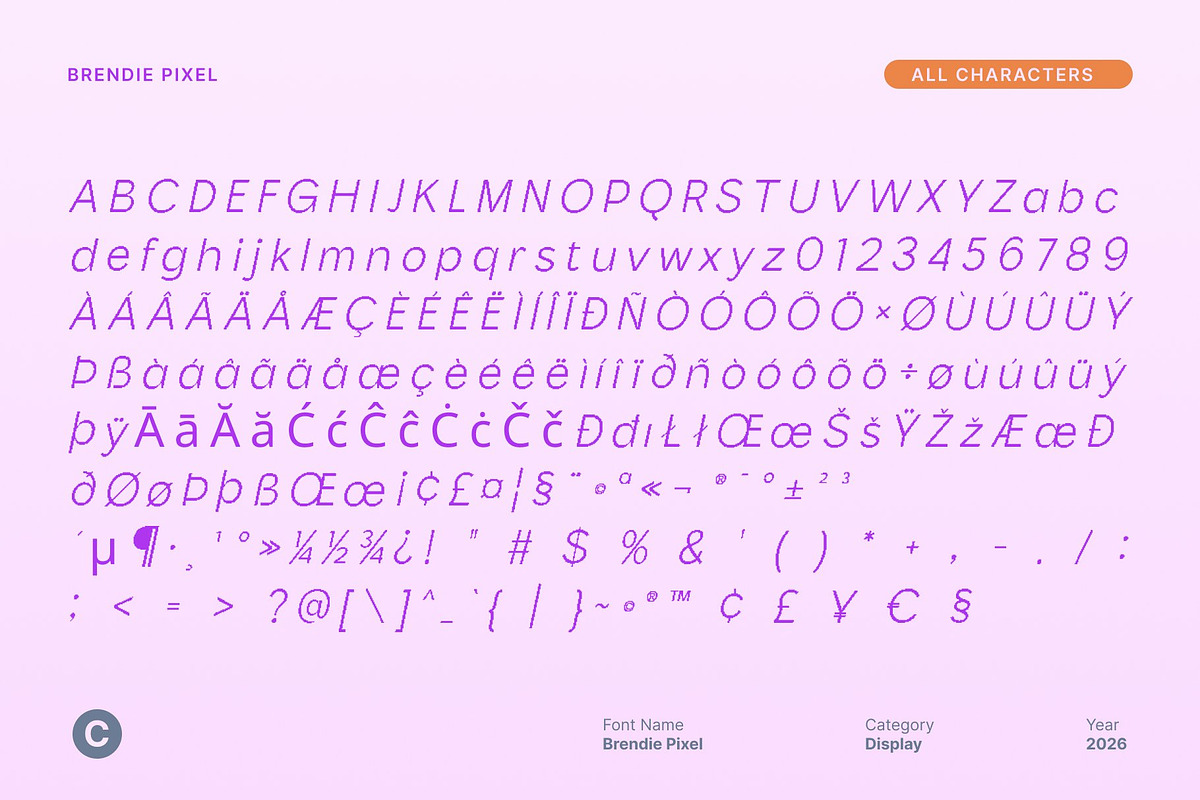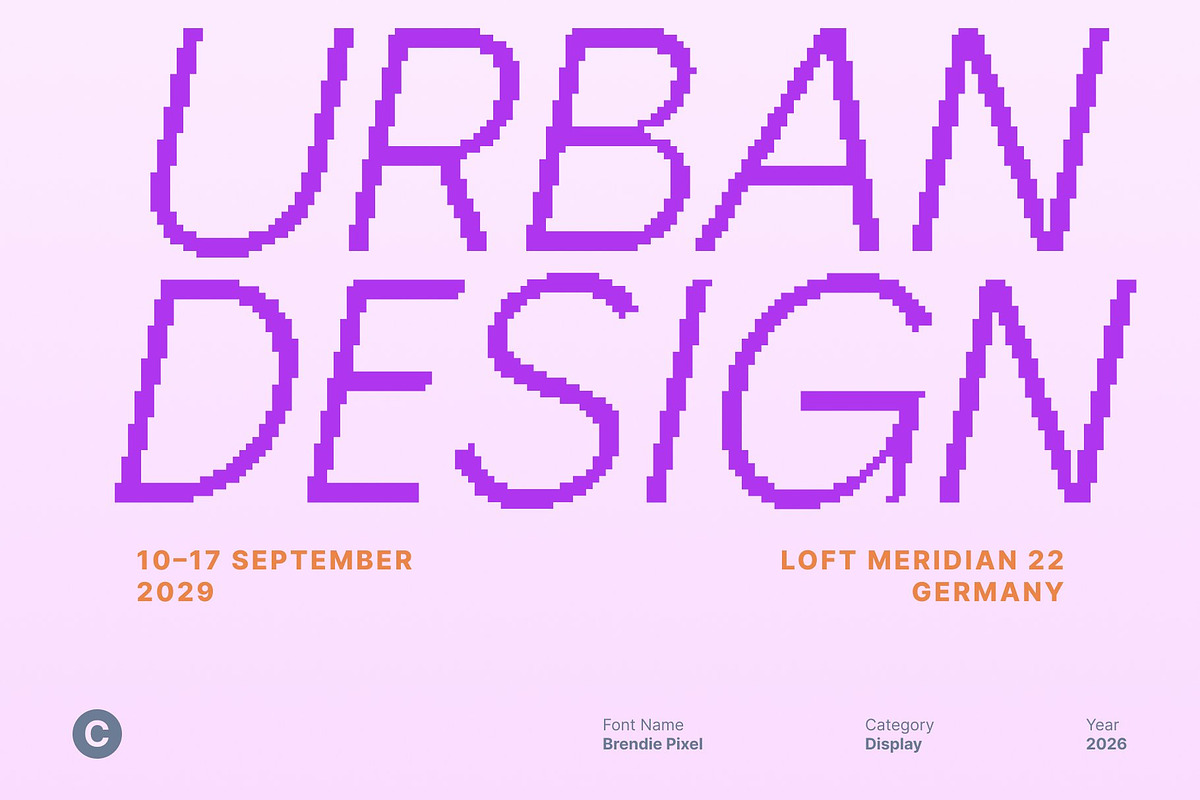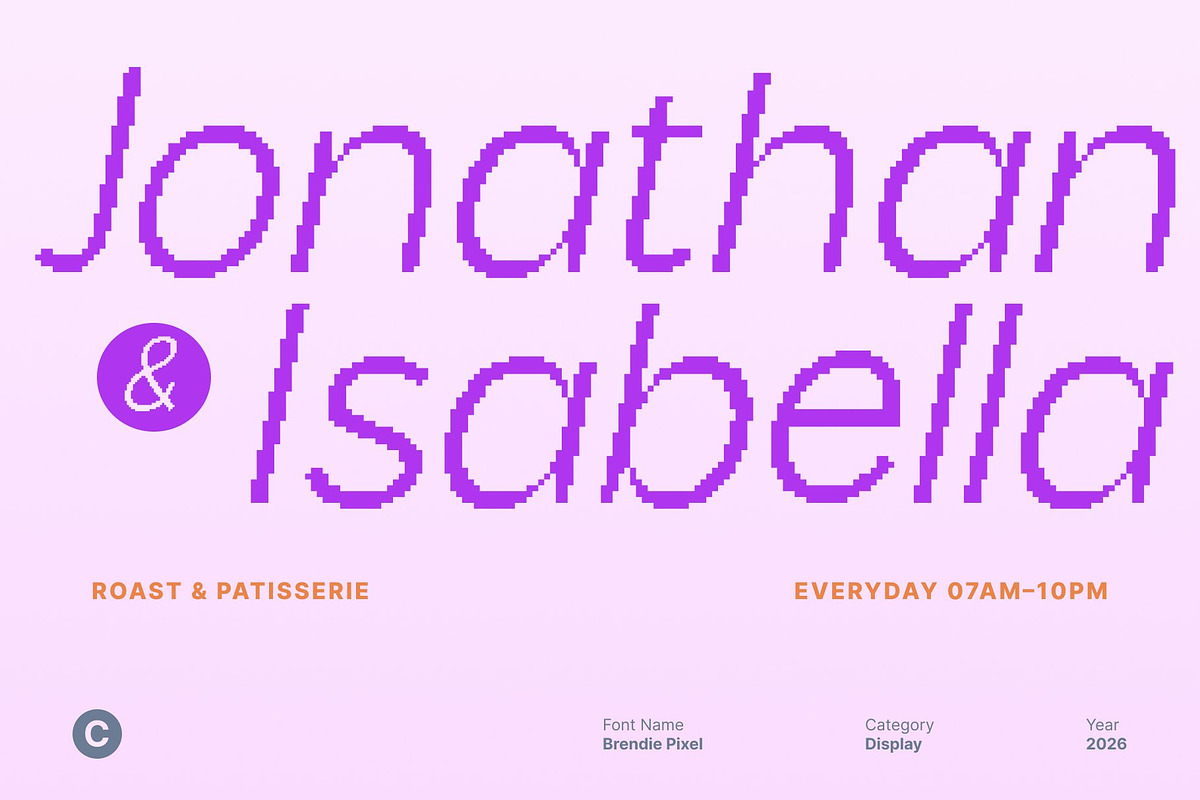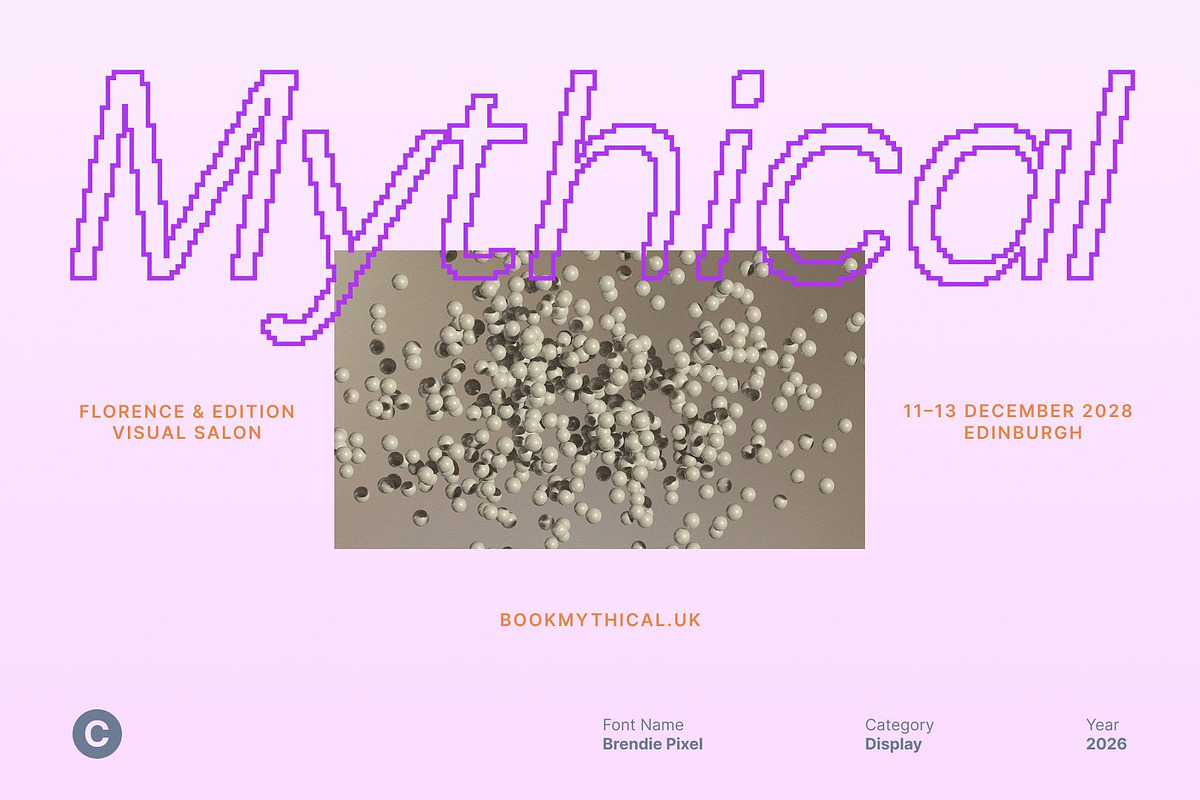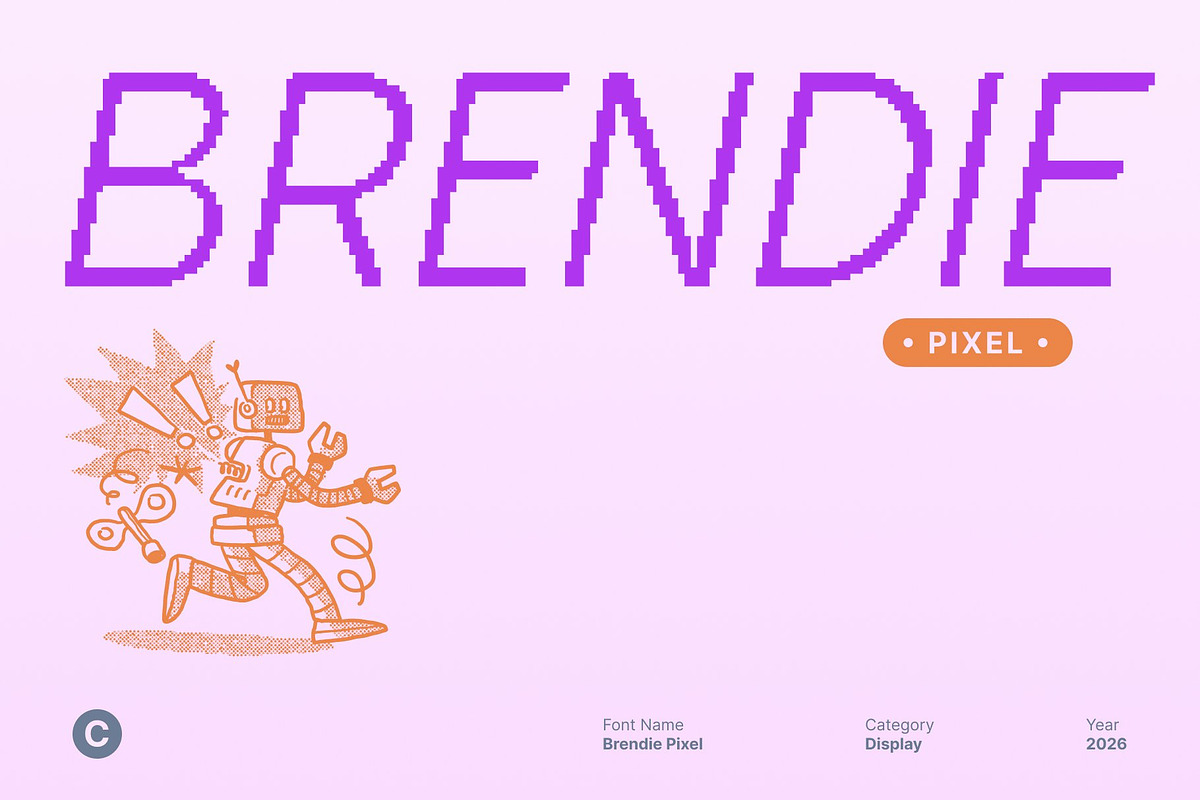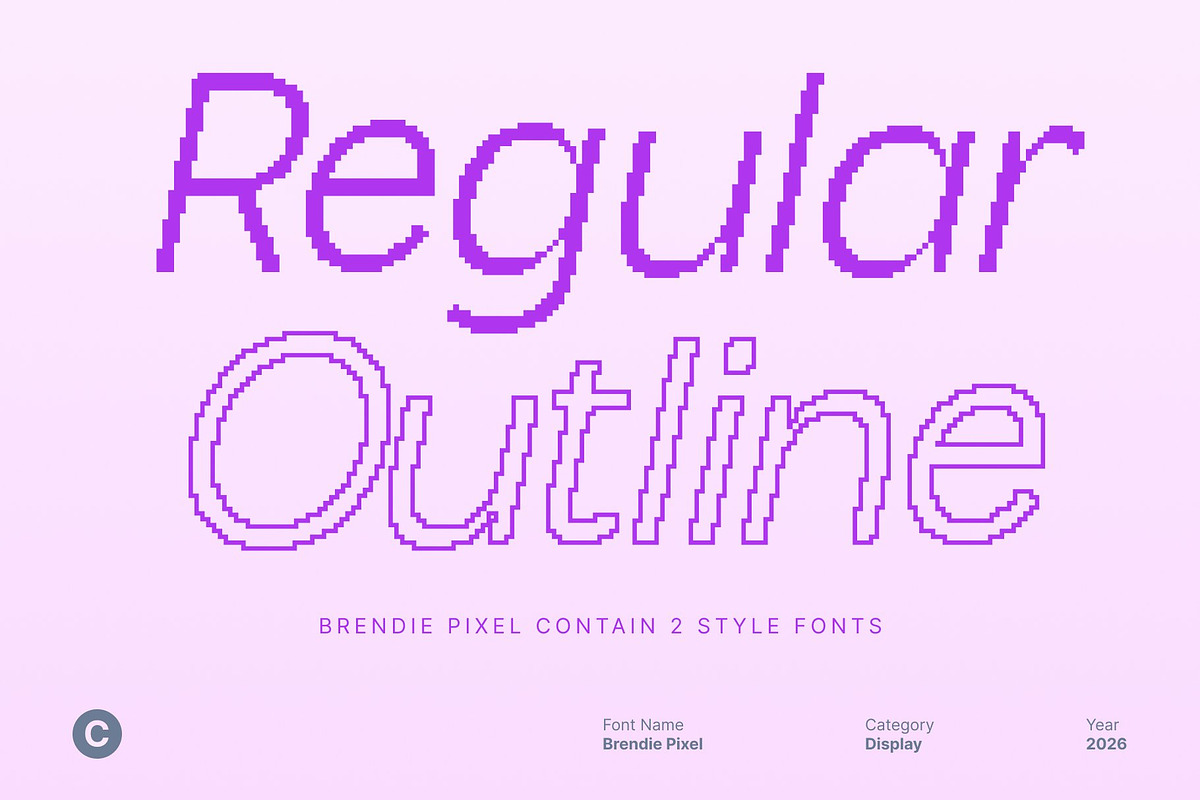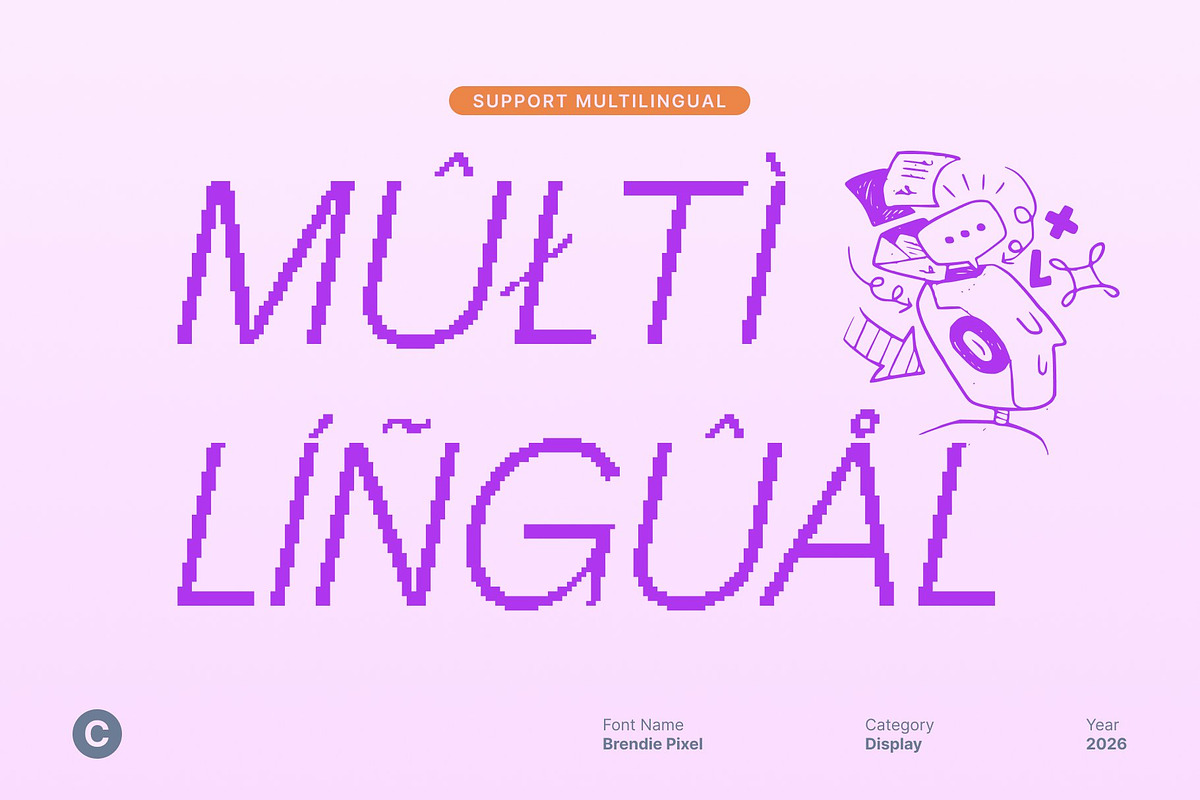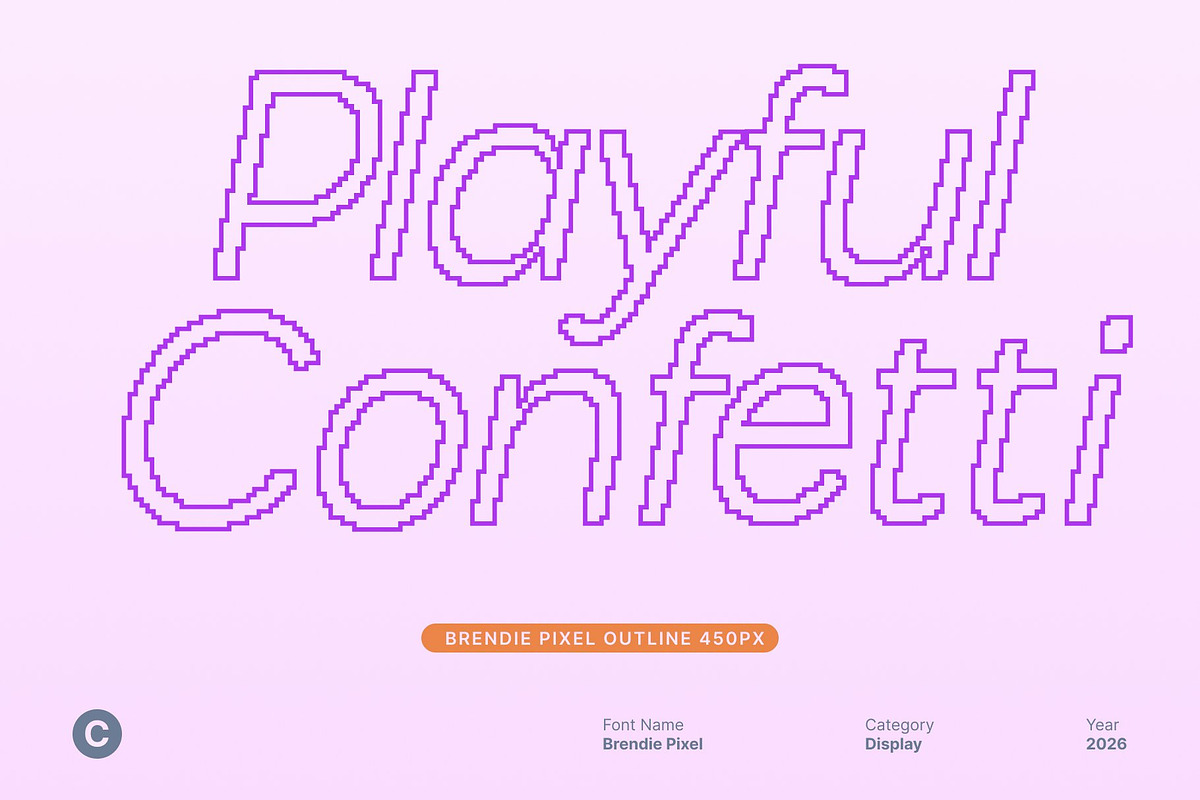
Brendie Pixel
Brendie Pixel – Modern Sans Serif Font for Professional Use
Clean Modern Design with Pixel Precision This is a modern sans serif font defined by clean, structured letterforms and subtle pixel detailing. This combination creates a sleek and professional appearance that feels contemporary and digitally refined. Its minimalist construction ensures clarity and readability, making it a reliable choice for corporate and business-focused design projects.
Designed for Corporate Branding Built to support strong brand identity, this font works seamlessly across logos, websites, presentations, and promotional materials. The modern sans serif foundation conveys professionalism and trust, while the pixel influence adds a refined digital nuance suited for today’s technology-driven environments.
Versatile Across Media and Layouts This font adapts effortlessly to both digital and print applications. Its balanced proportions and clean lines allow it to perform equally well in headlines, body text, and interface elements. This versatility ensures consistency across all visual materials while maintaining a polished and modern look.
Elevate Your Professional Image With its modern structure and pixel-enhanced precision, this font helps elevate corporate visuals with confidence and clarity. It delivers a cohesive, professional aesthetic that strengthens brand communication, making it an ideal typographic solution for businesses seeking a modern, refined, and dependable font.
- Brendie Pixel Regular
- Brendie Pixel Outline